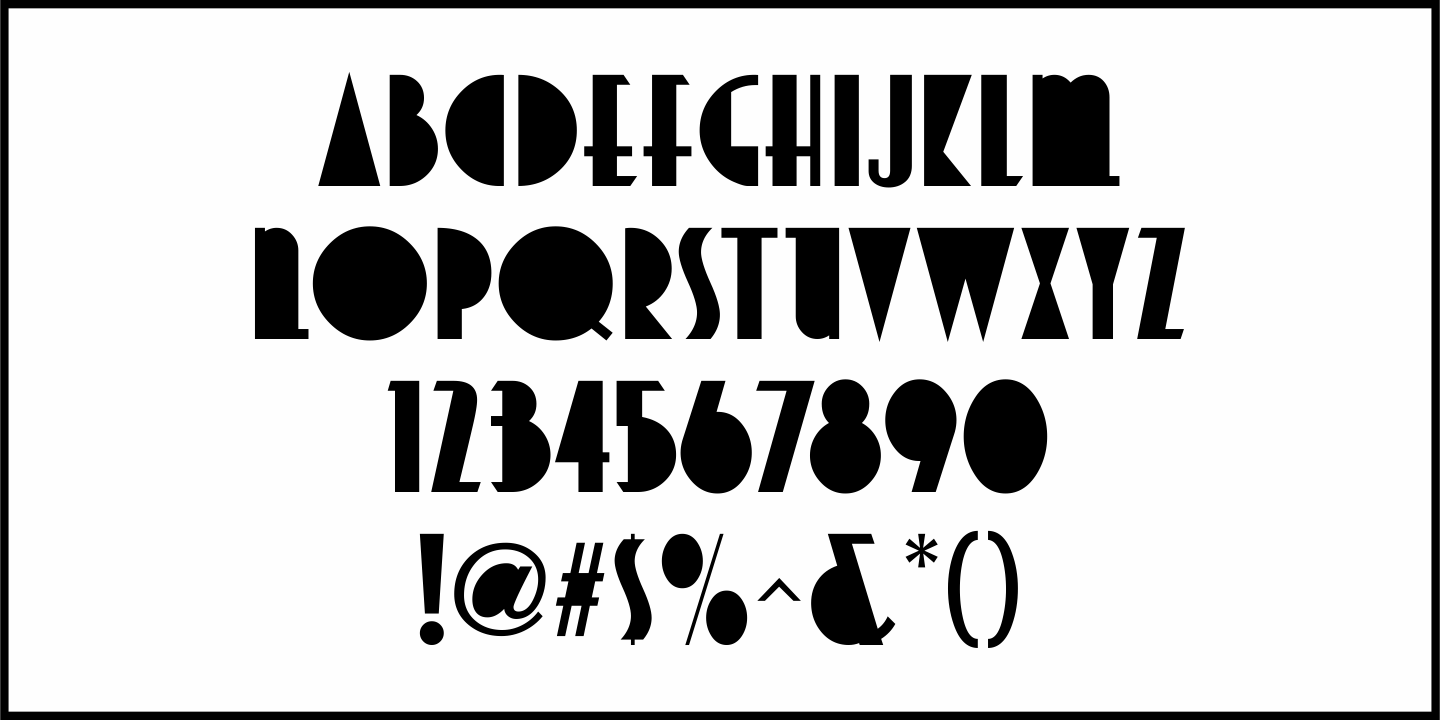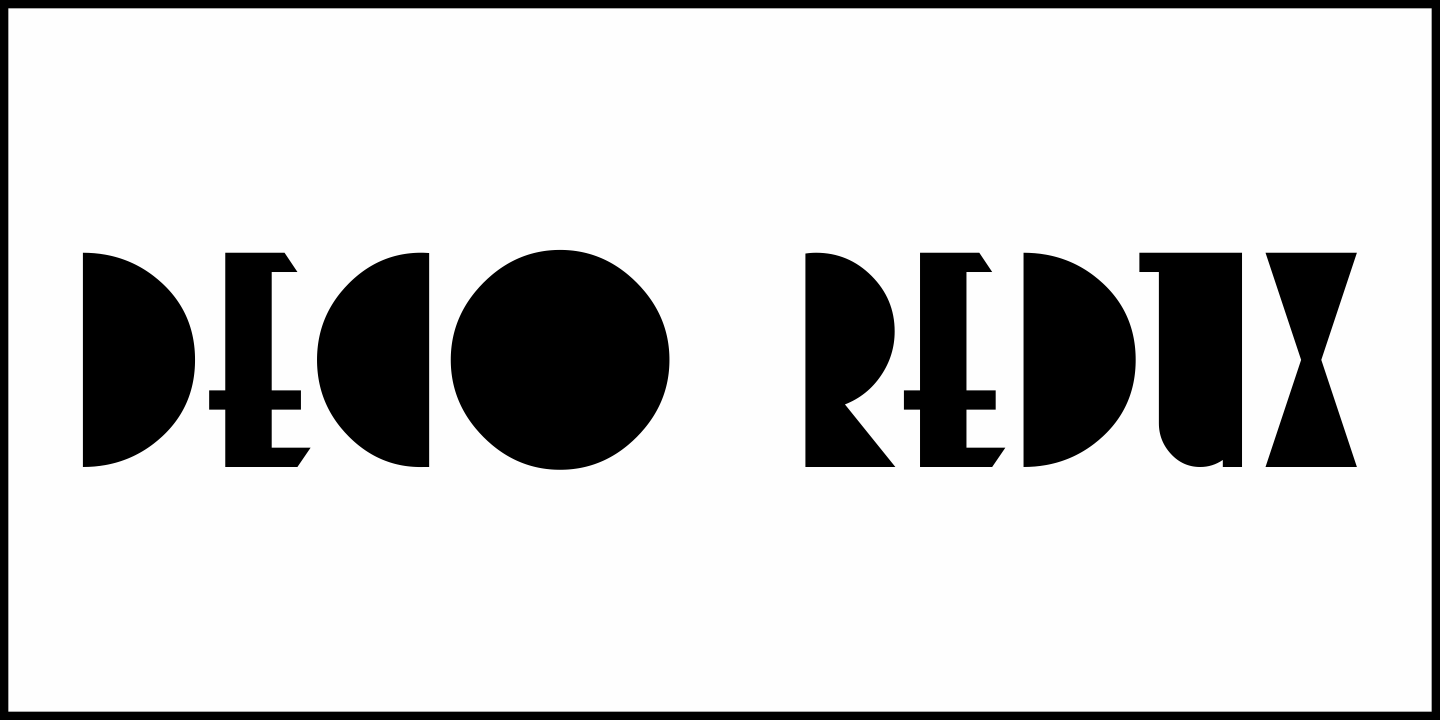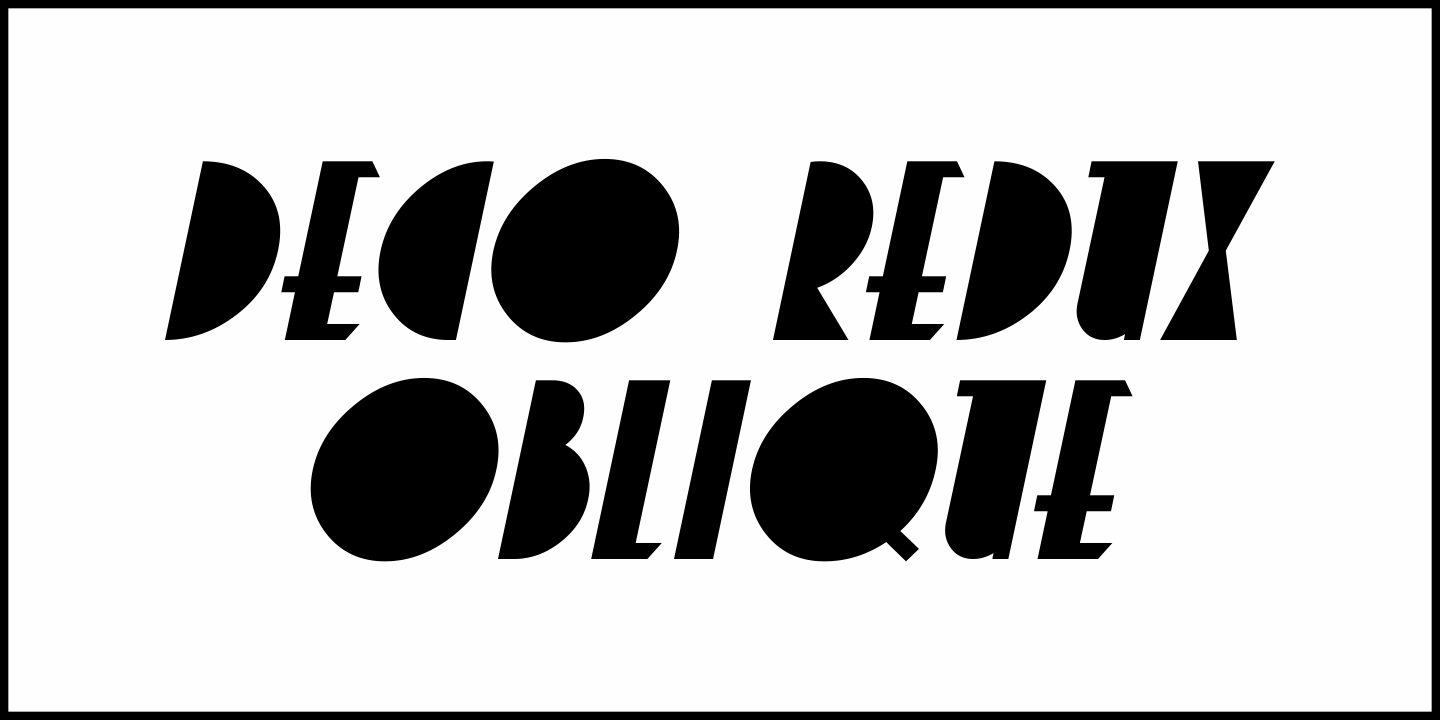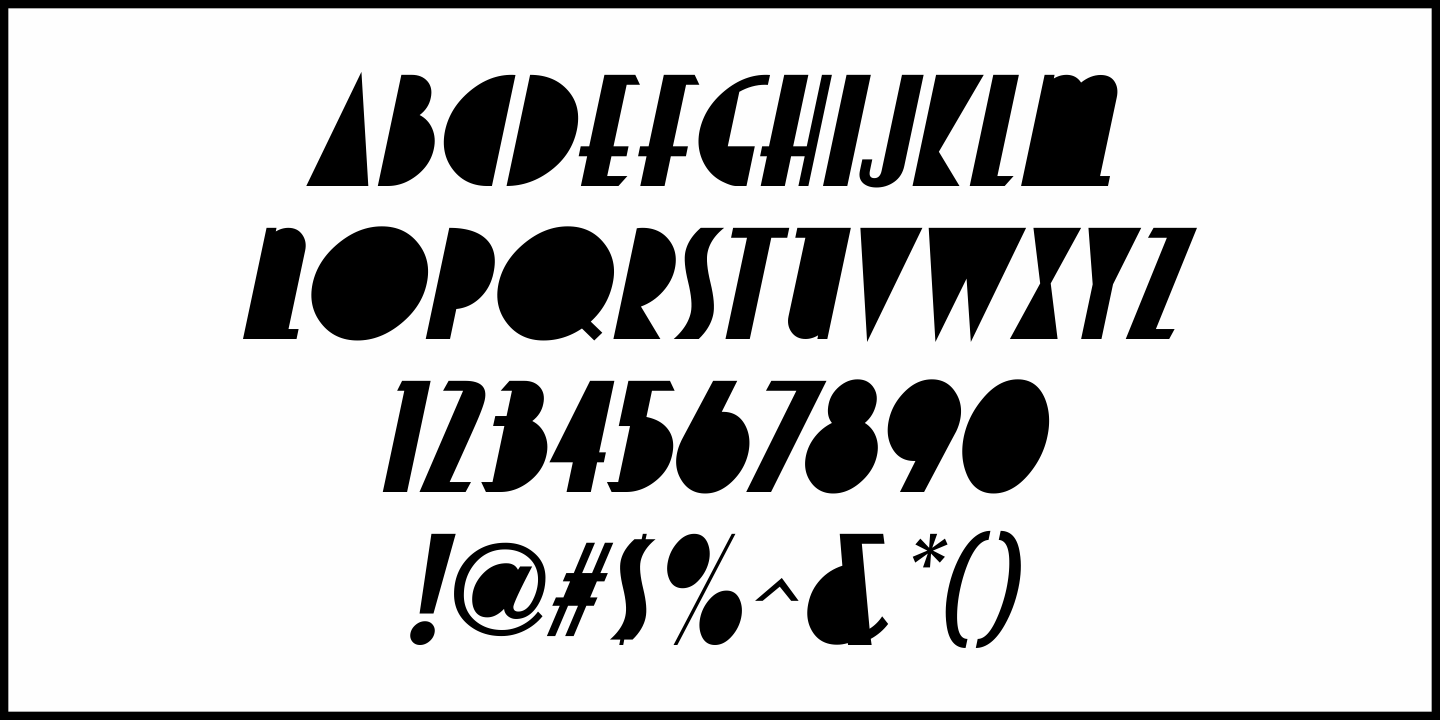
Deco Redux
A long-set aside Art Deco typeface design begun (but not completed) may or not have been from a vintage source, but its roots go well back into Art Deco lettering.
Taking the existing letters and thickening their weights, removing the counters and ending up with a completely new, solid alphabet design resulted in Deco Redux JNL, which is available in both regular and oblique versions.